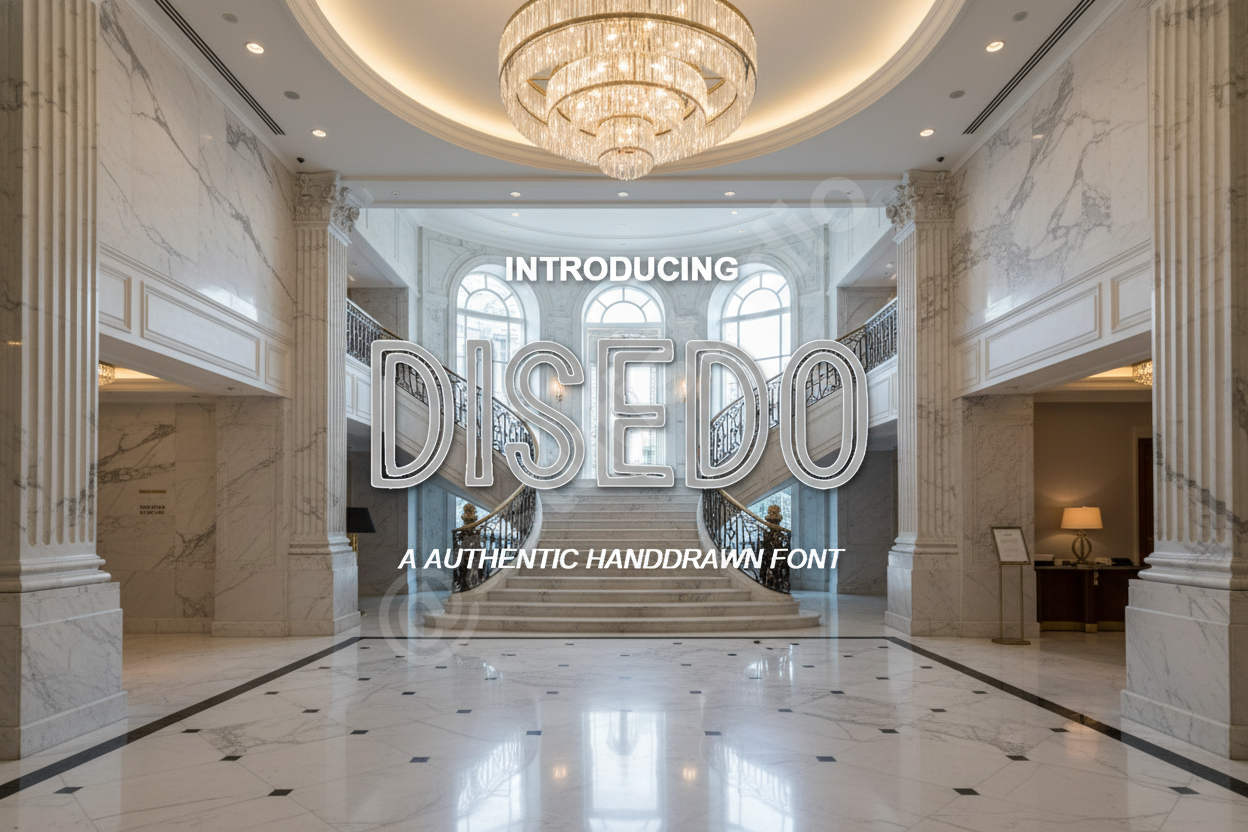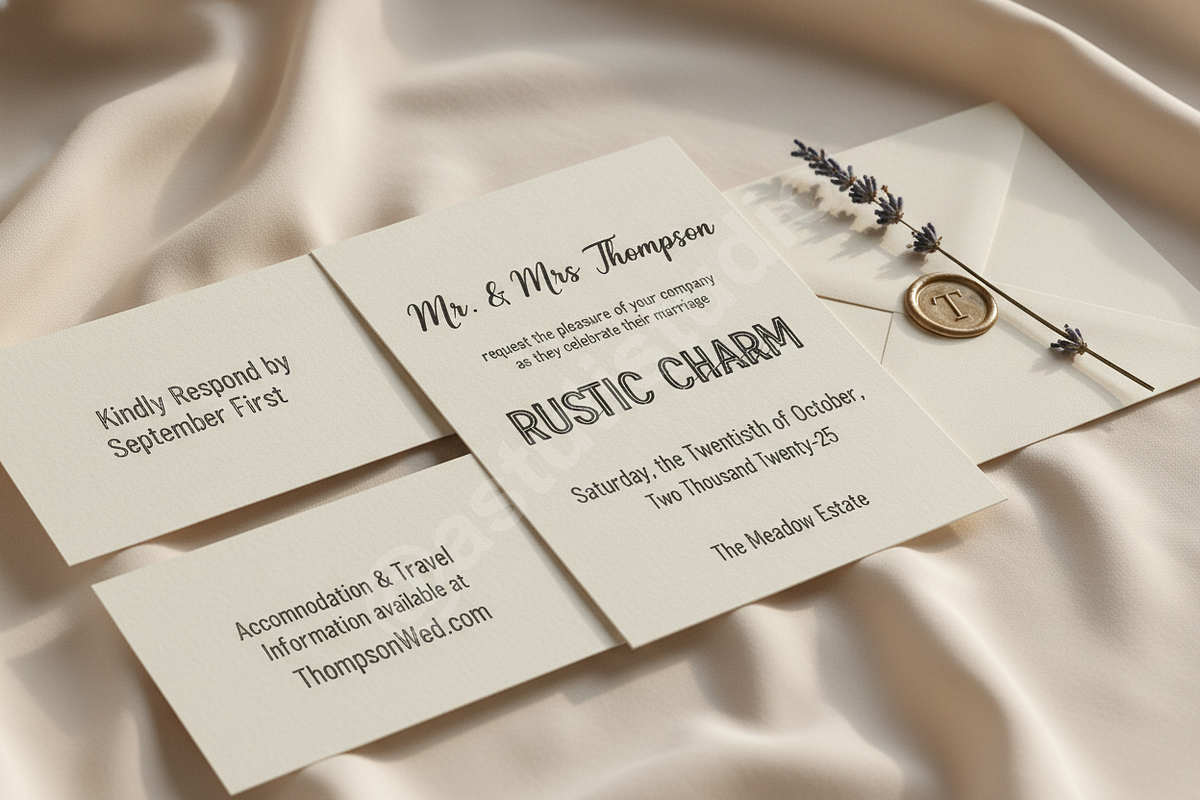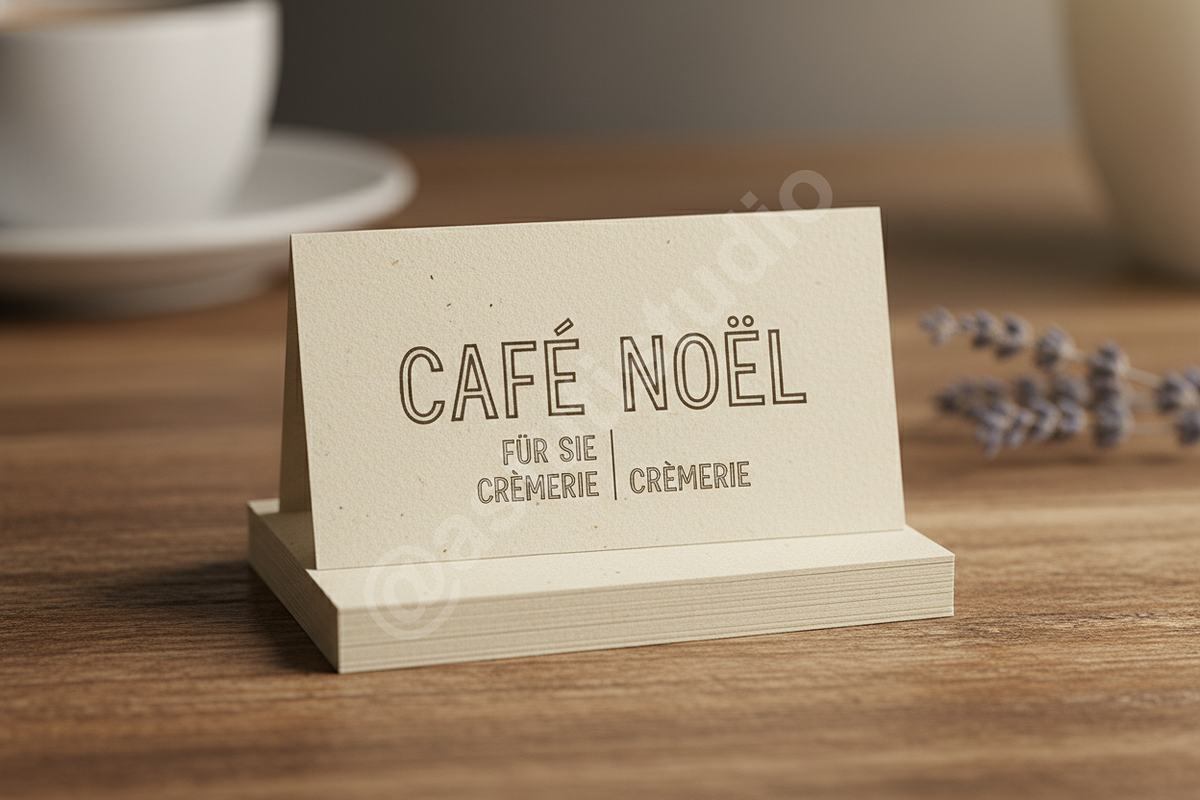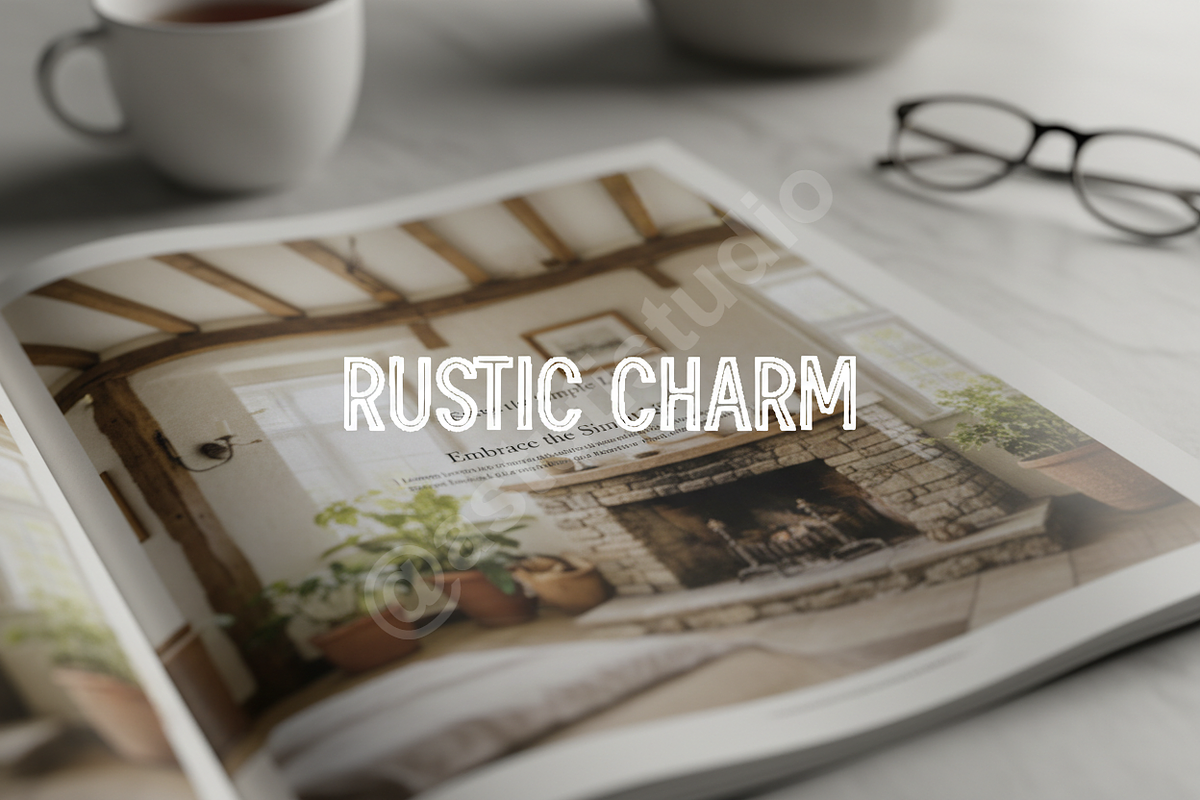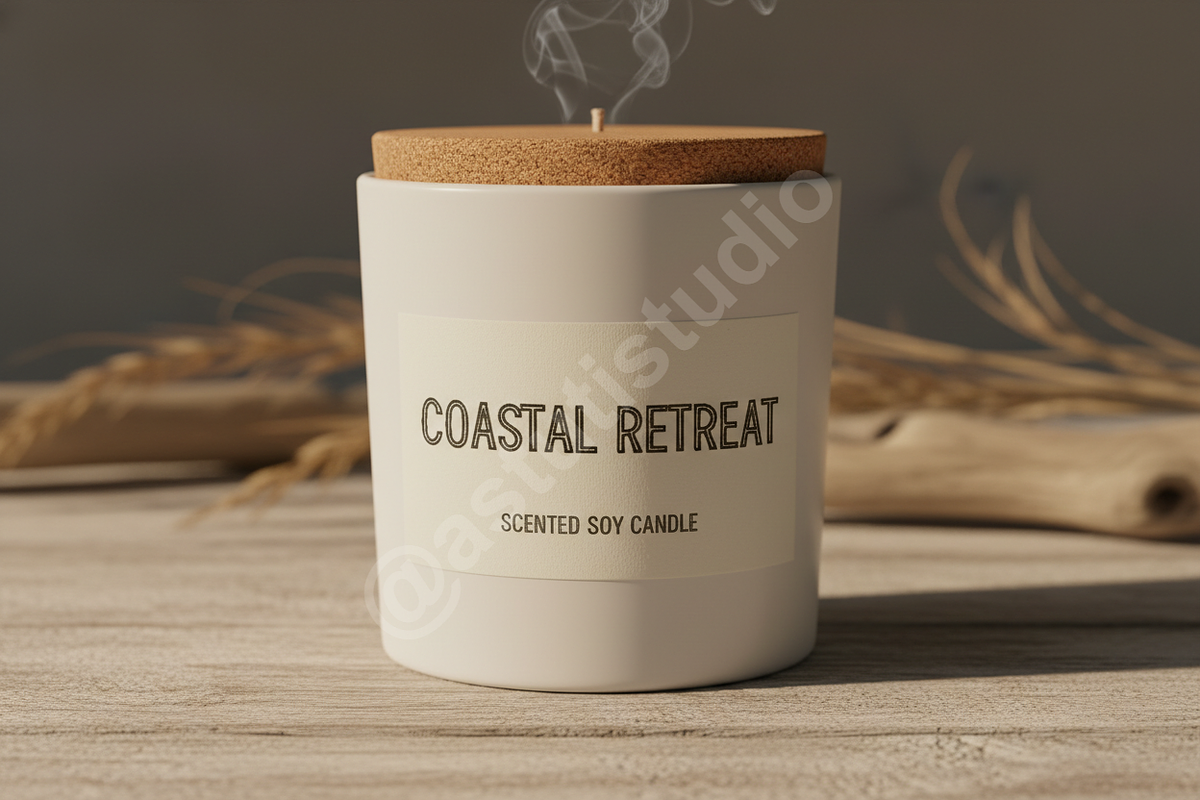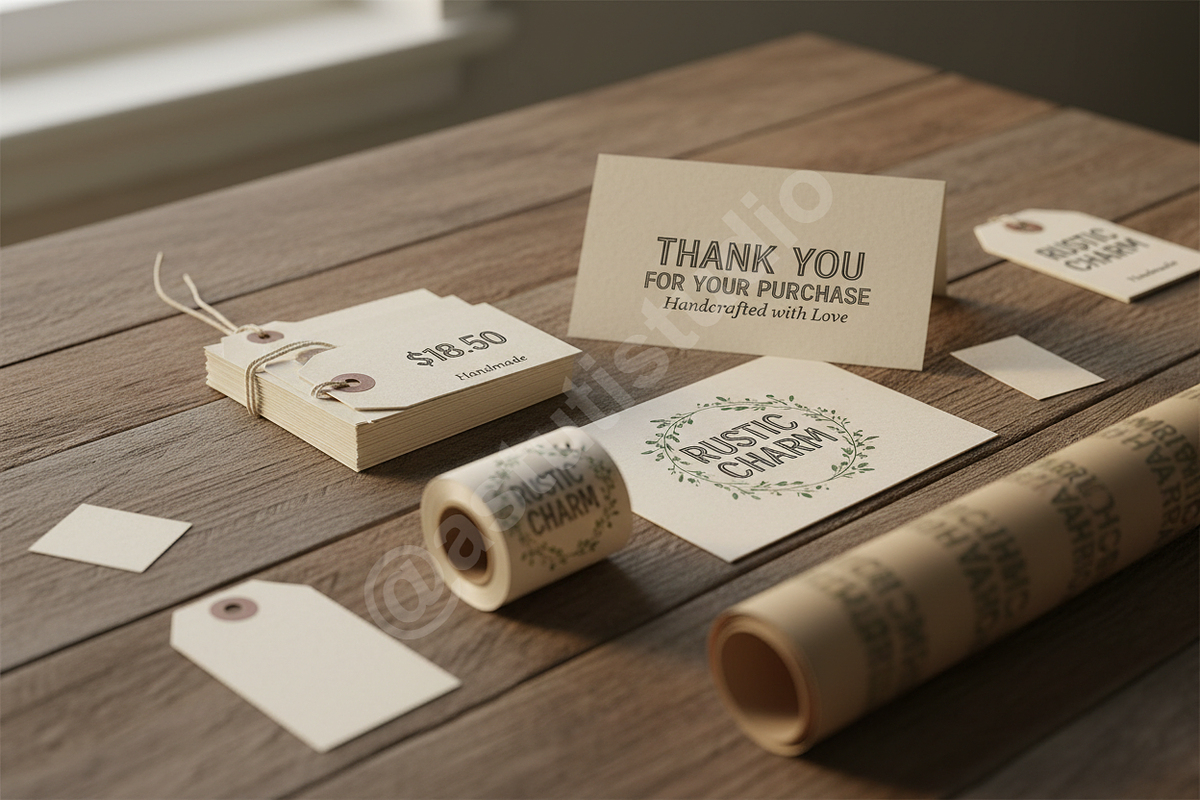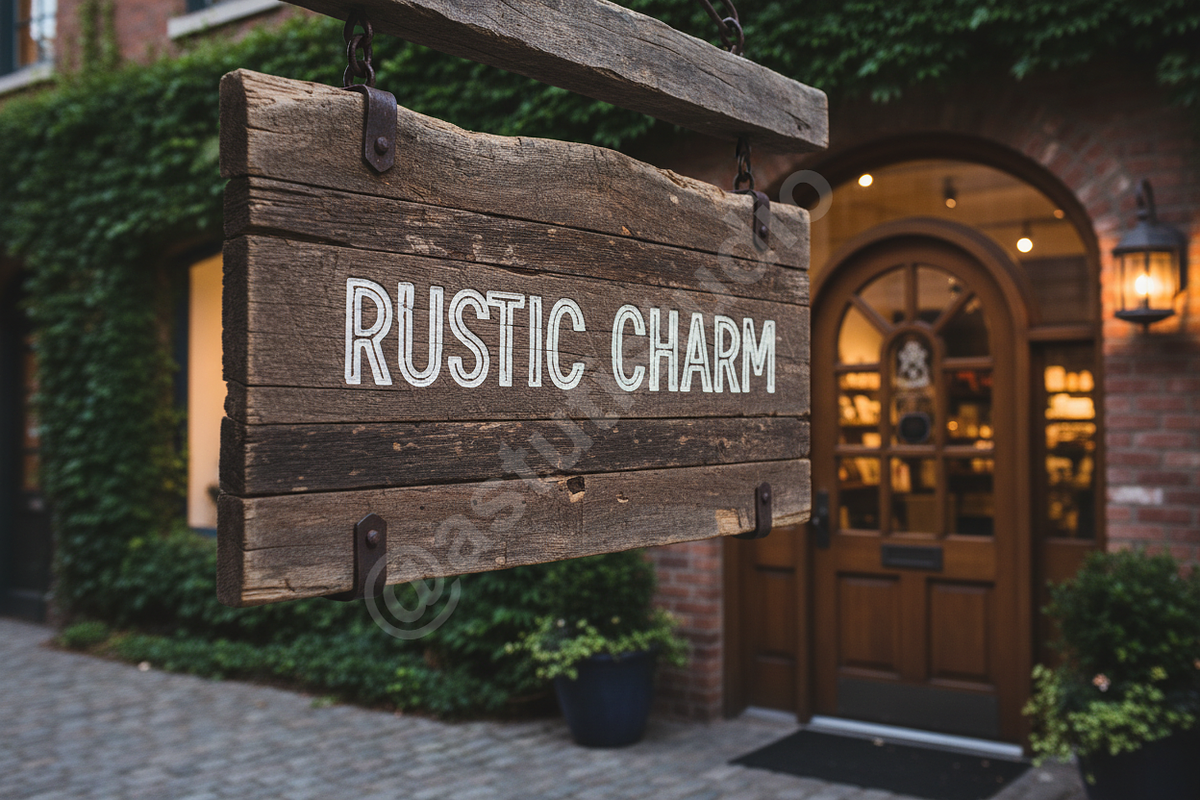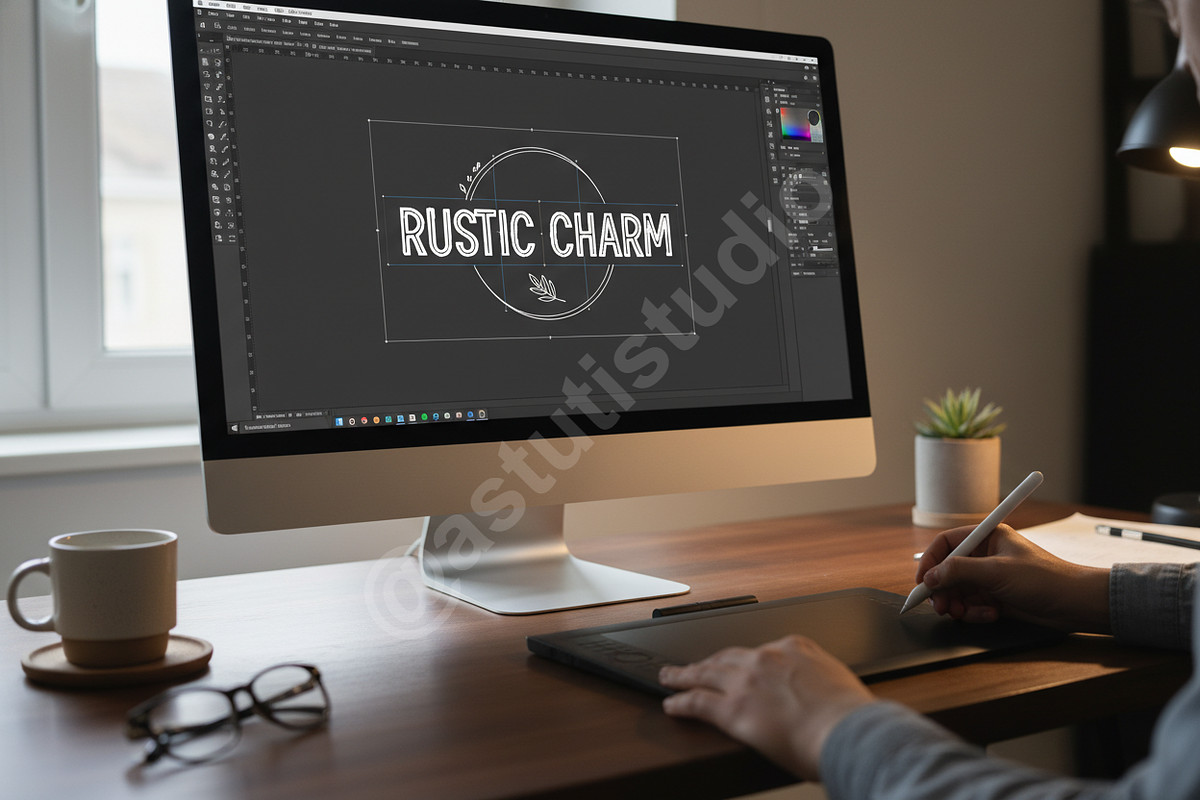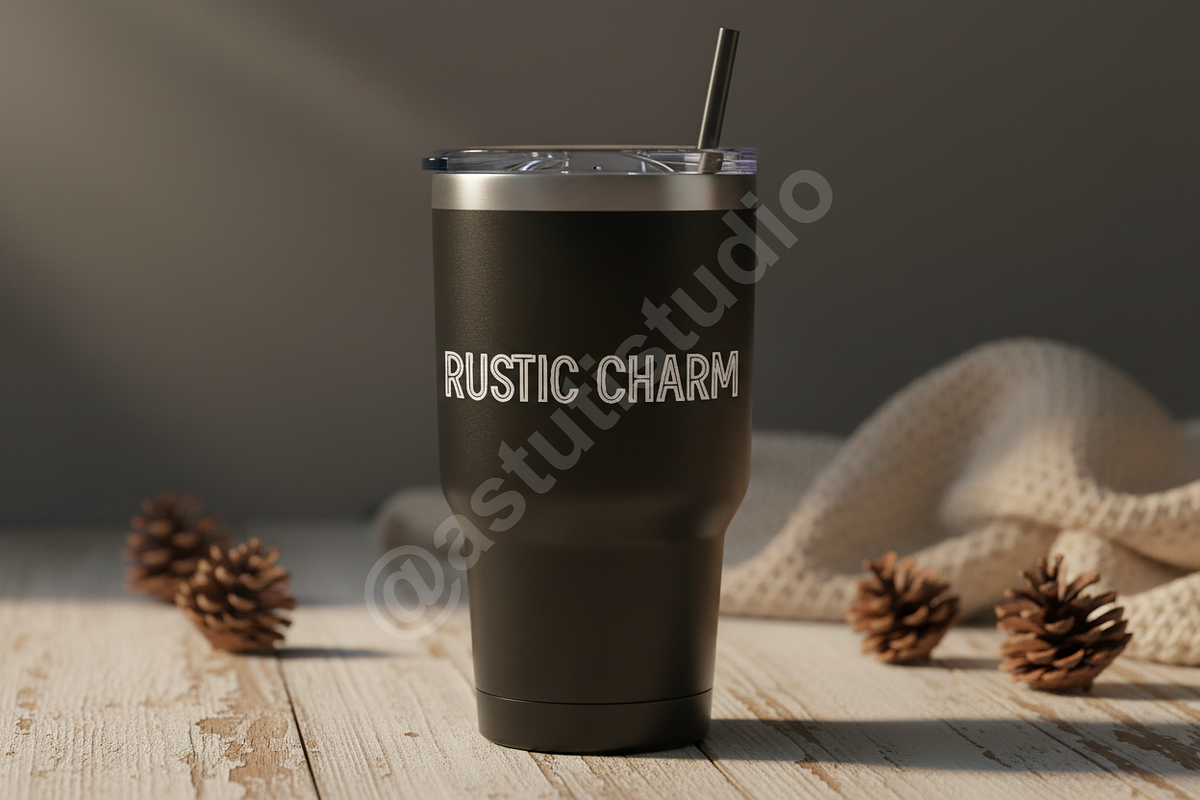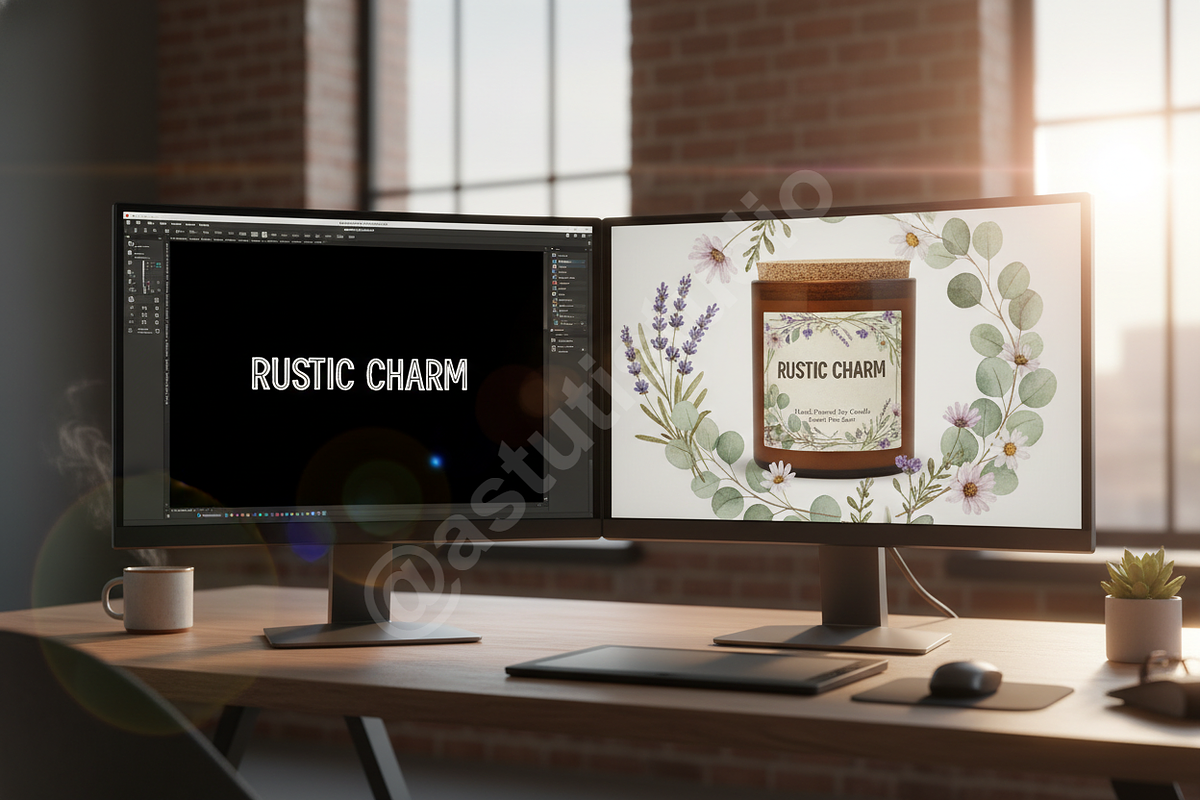
Disedo - Elegant Sans Serif Font
Disedo: A Luxury Typeface for Elevated Design
Elevate your creative projects with Disedo, a meticulously crafted sans-serif typeface designed for sophistication and timeless elegance. Disedo embodies modern luxury, making it the perfect choice for high-end branding, captivating editorial layouts, and impactful social media campaigns. Its clean lines and refined proportions ensure your message is delivered with clarity and an unmistakable air of prestige.
- Elegant & Modern Design: A versatile sans-serif with a sophisticated aesthetic.
- Extensive Ligatures & Alternates: Enhance typography with unique character combinations for a bespoke feel.
- Multilingual Support: Reach a global audience with comprehensive character sets.
- Optimized for Readability: Seamlessly blends style with excellent legibility across all mediums.
- Versatile Application: Ideal for logotypes, headlines, body text, and digital interfaces.